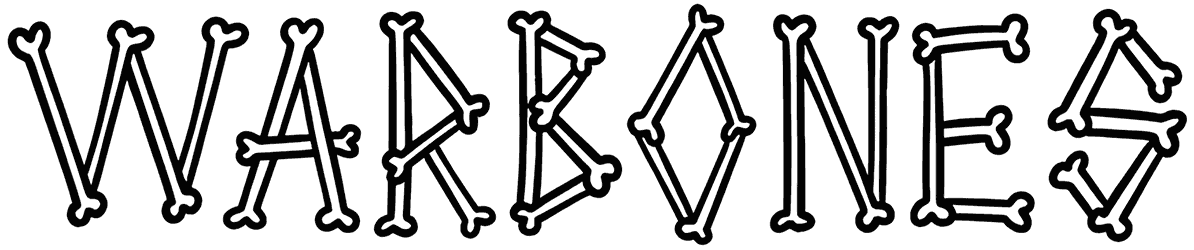
A good flavor can boost the taste of your food, and a magical all-caps pirate font, the same as The Modern Pirates!, can play a similar role in your graphic projects, including illustrations, magazines, applications, or video game brochures. Due to its quirky and chunky characters, this techno font can share a sense of jauntiness, viability, or fierceness with the audience.
Izallazi